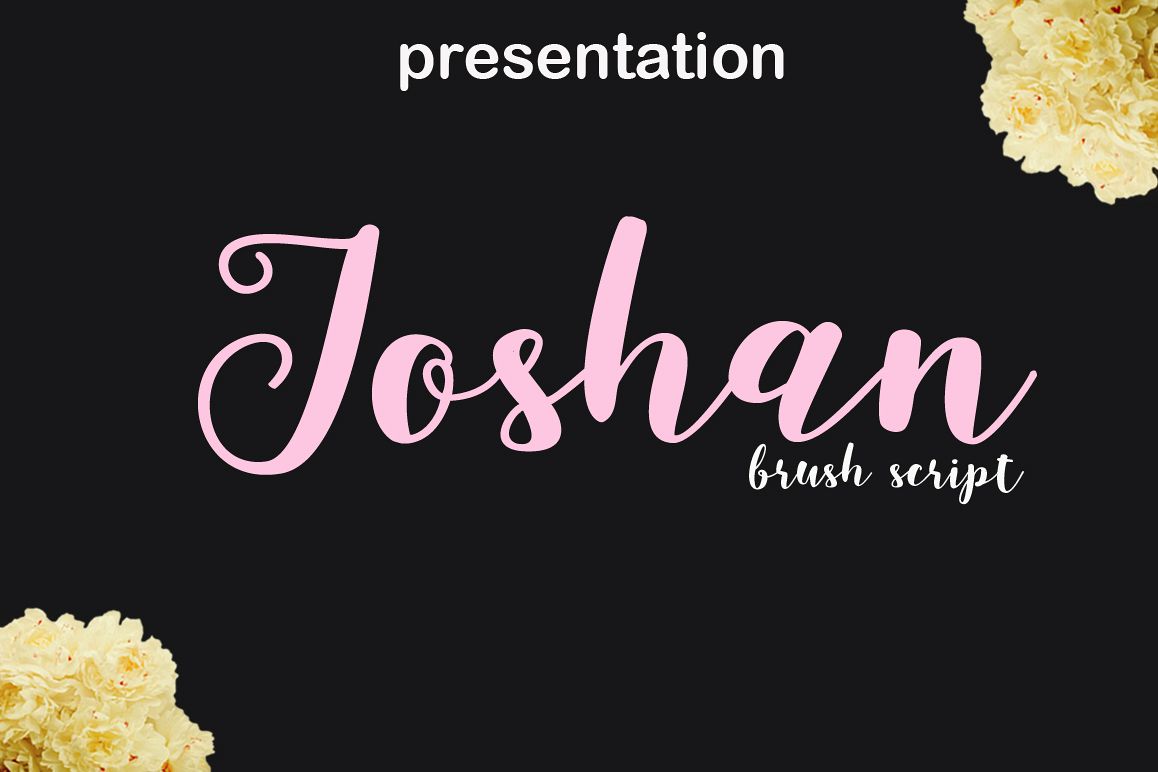
joshan brush script
Joshan Brush Script  isHand painted manuscripts inspired by the typeface typography viscous and hand letter. Combine with street art, graffiti, grunge, europe thick shades. Ideal for; Logo, design clothes, invitations, brochures, posters, greeting cards, product packaging, header, printed excerpts, album cover, etc.
Initial Alternates
Terminal Alternates
Stylistic sets